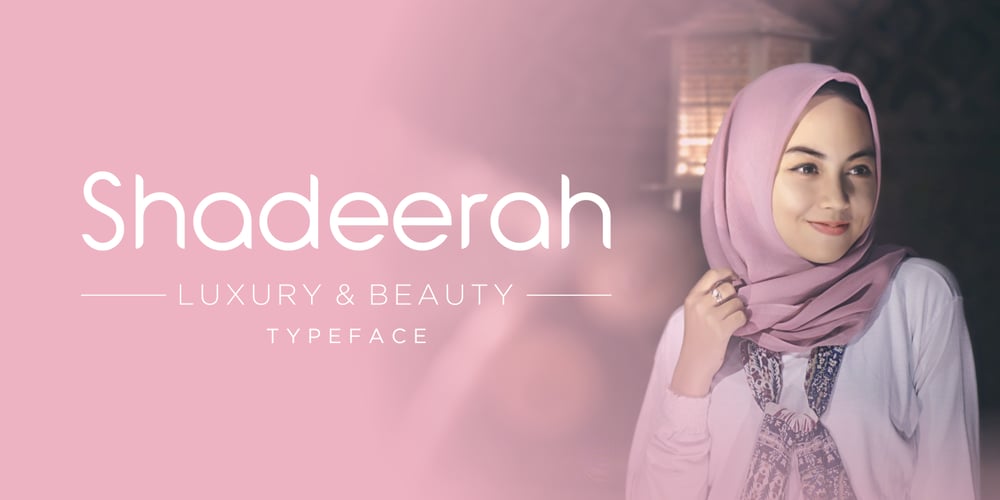
Shadeerah Font Family was designed by Anthonie Van Hayu and published by ARToni. Shadeerah contains 3 styles and family package options. Shadeerah is a stunning sans serif font with incredible feel and look. It will add a unique charm to any design project!